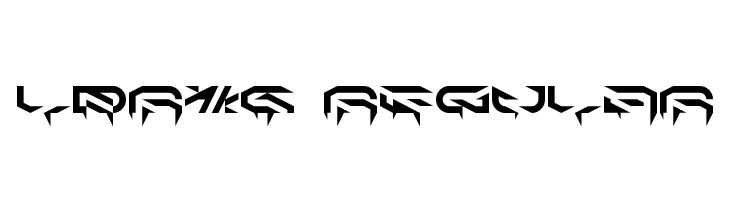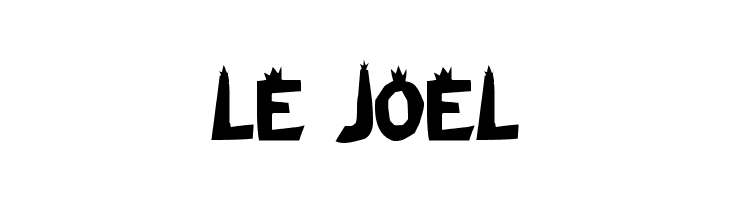
A futuristic and angular font with sharp, geometric forms.
A bold, geometric font with a futuristic and tech-inspired design.
An artistic, irregular font with jagged edges and a hand-crafted appearance.
A playful, handwritten font with rounded, smooth letterforms.
A delicate and elegant script font with flowing, graceful strokes.
A playful and jagged font with bold, irregular shapes and dynamic energy.
A playful, handwritten font with elongated, flowing characters.
A playful, casual handwritten font with smooth, flowing lines and consistent stroke width.
A bold, handwritten font with smooth, rounded edges and a playful style.